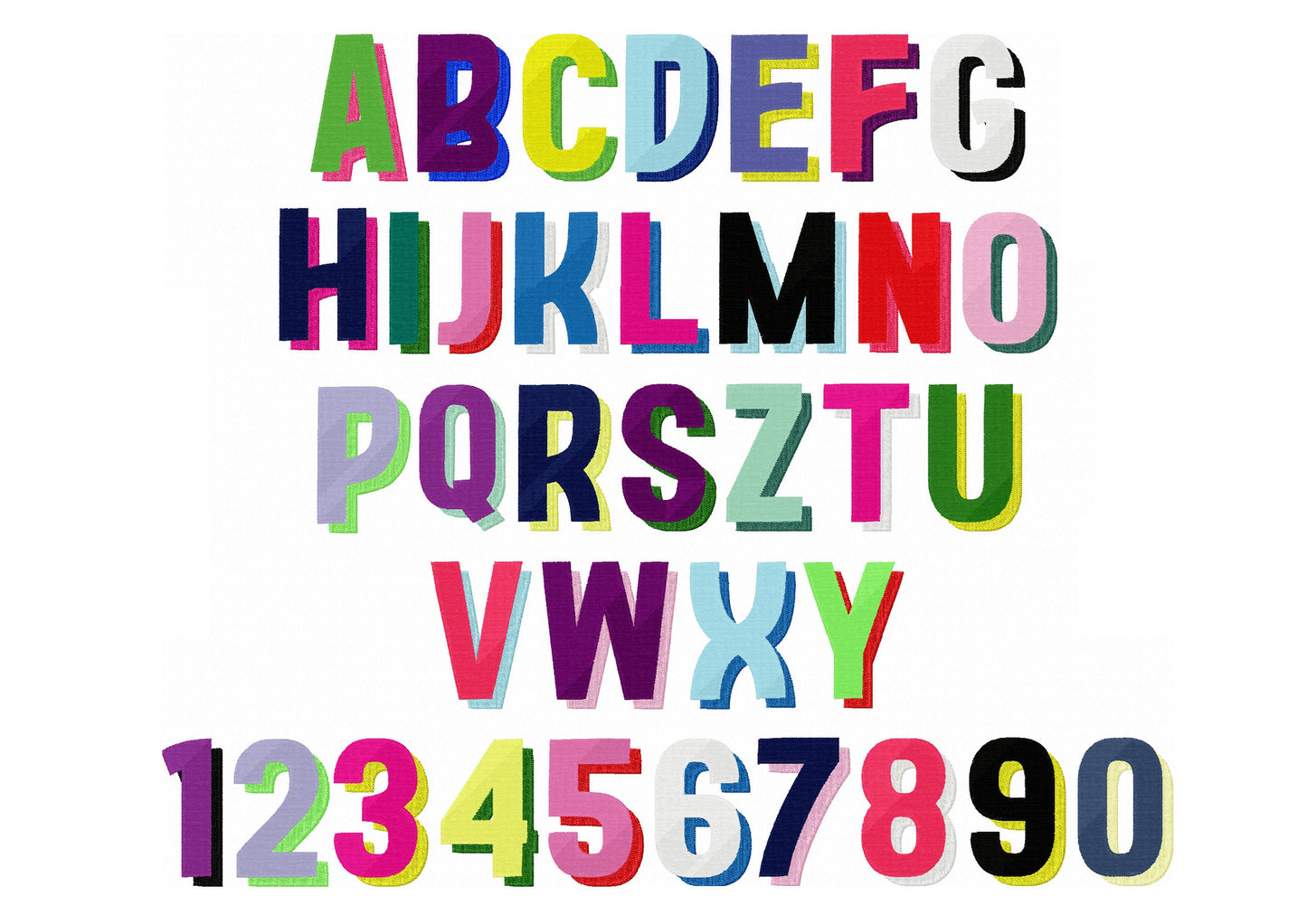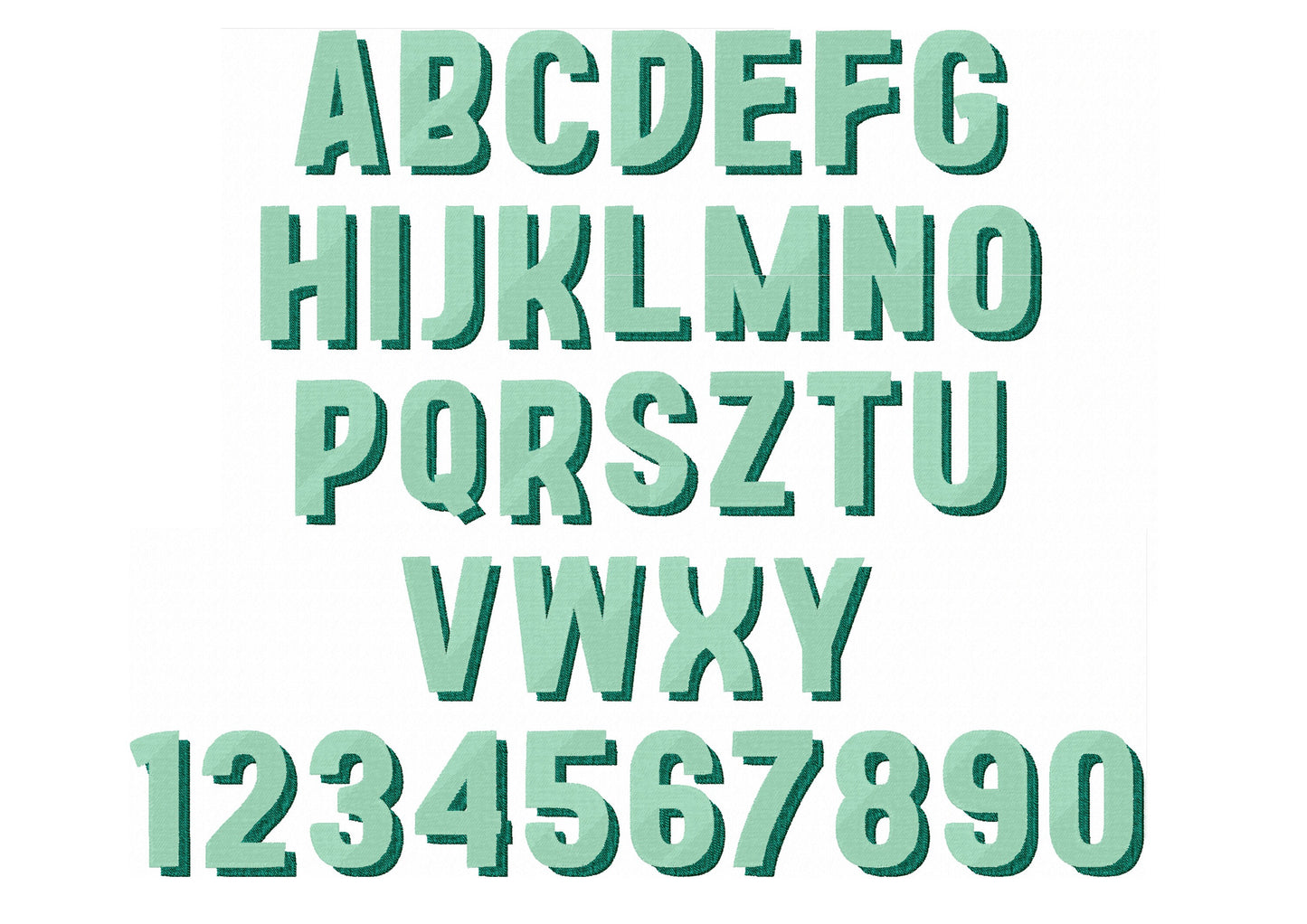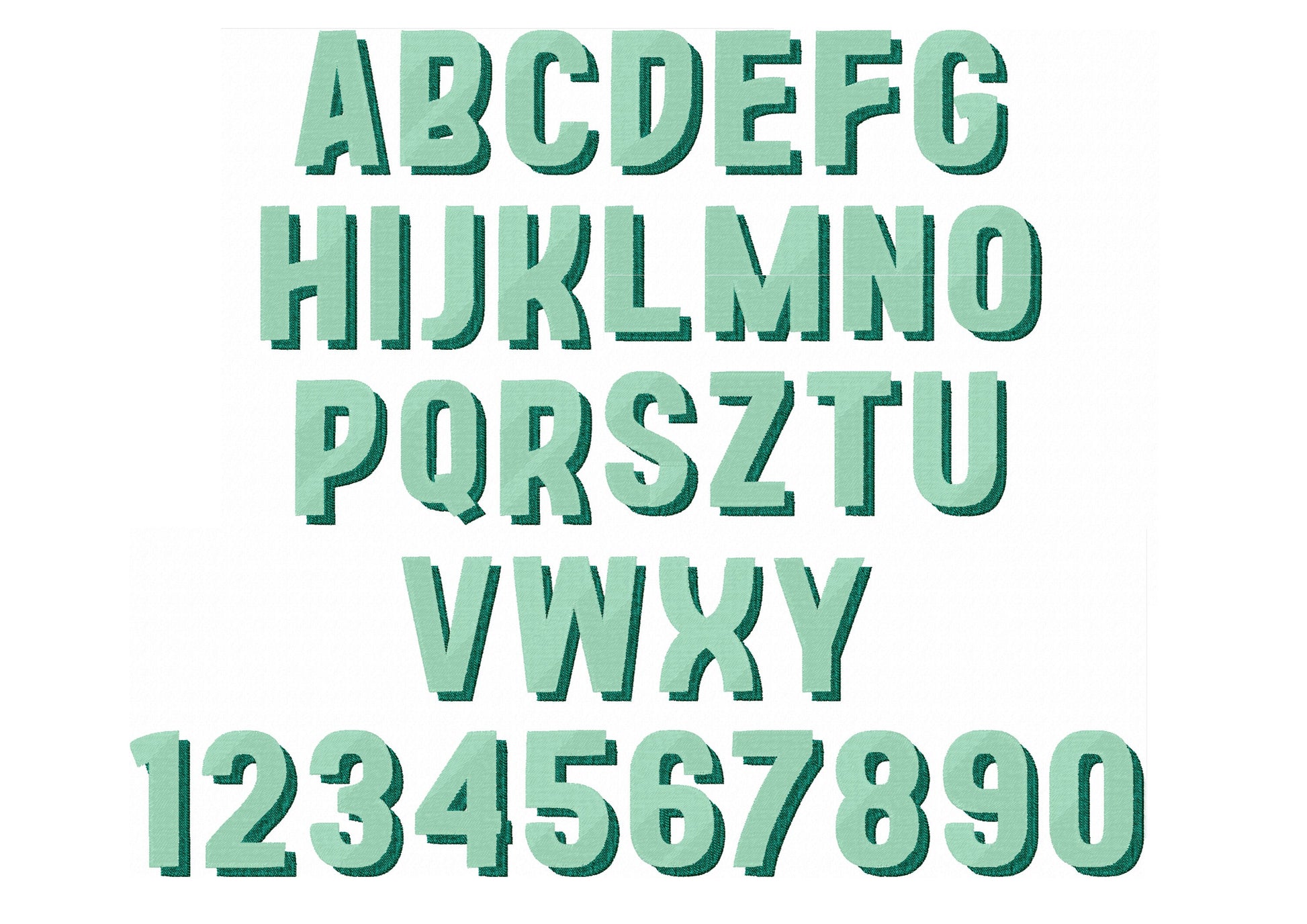
Or click to open the linkA colorful varsity font with a shadow, in fill stitch. Great for monograms, team shirts, jackets and bags.
Uppercase letters A to Z, numbers 0 to 9, an ampersand, comma, dash and period. Five sizes: 1.5, 2, 2.2, 2.5 and 3 inches.